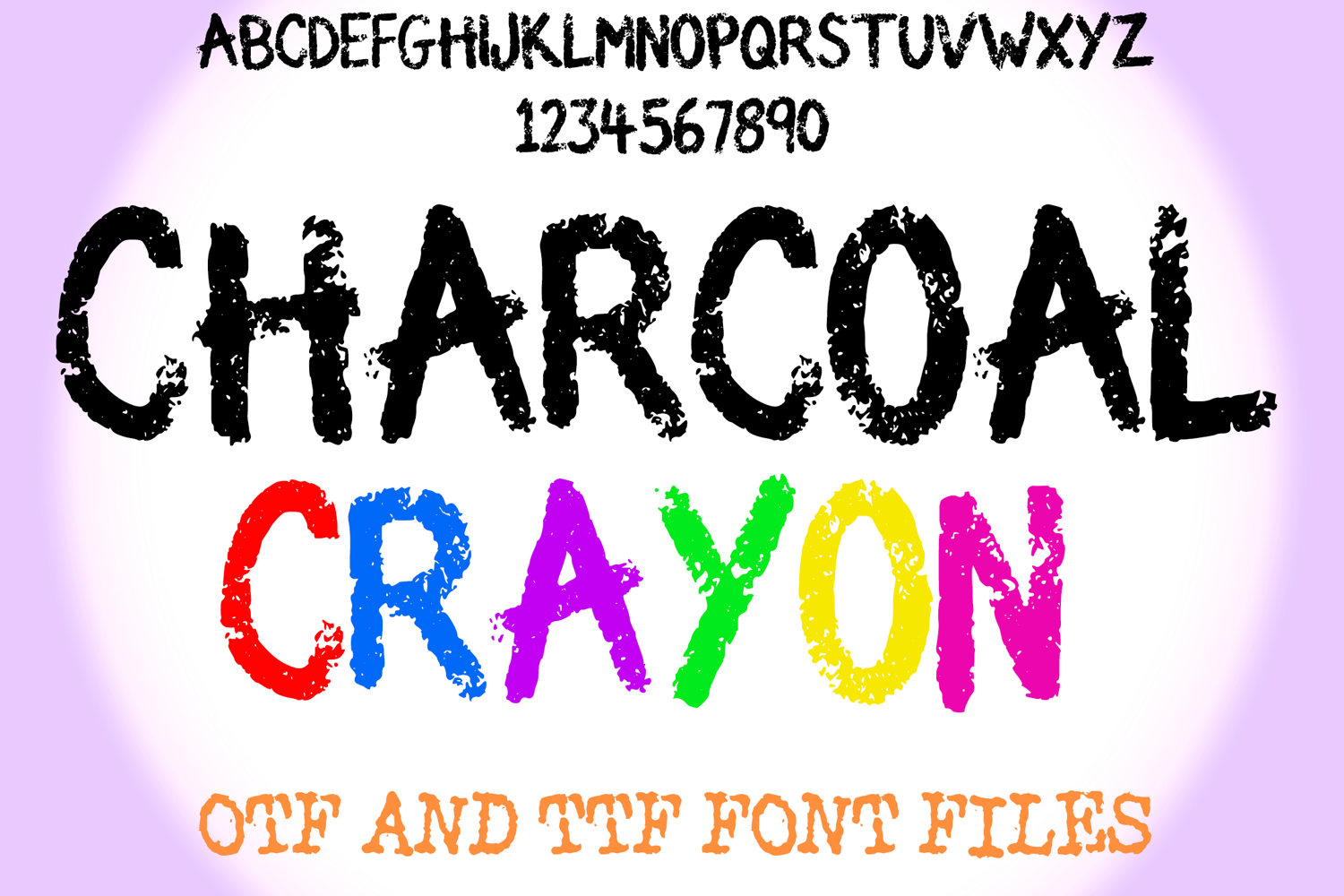
Charcoal Crayon Lettering ABC Text Font Alphabet OTF Type Illustration
An inky style font where you can create your own words and colour them to your vision!